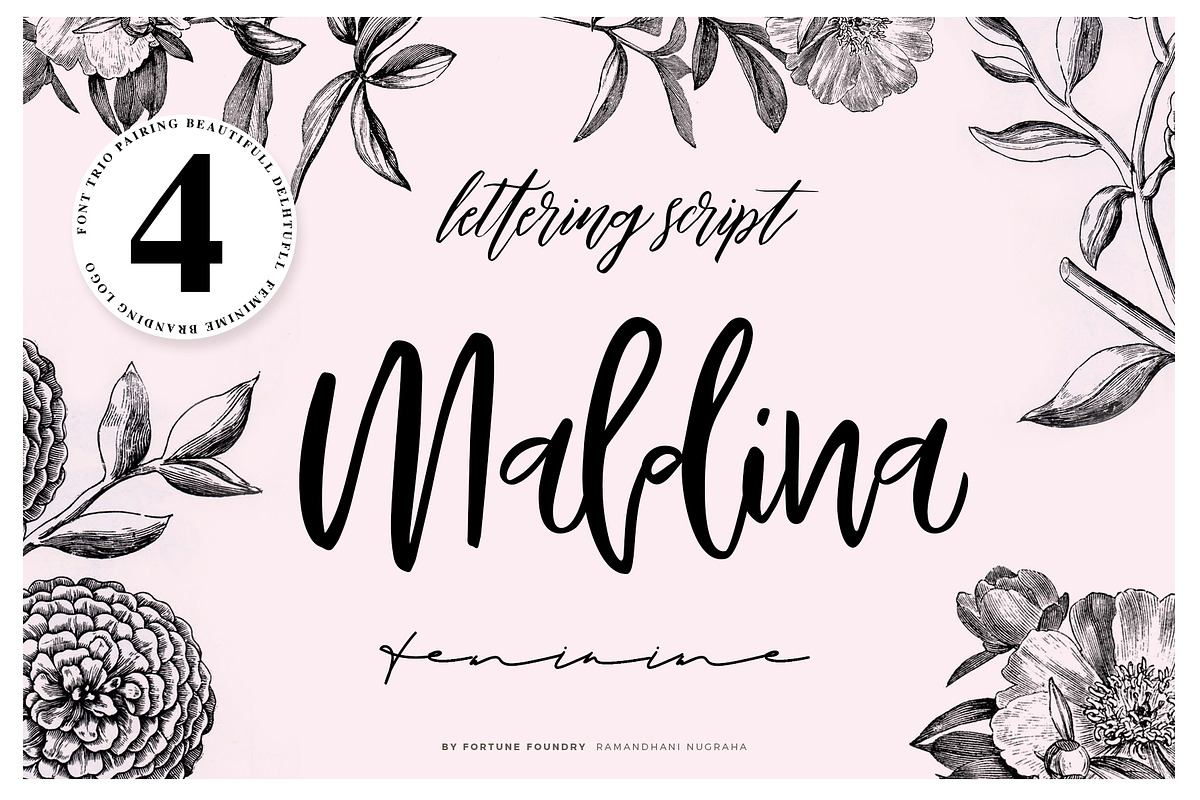
Maldina Feminime (4 fonts) Free Download
Maldina Feminine (4 Fonts) Free Download
Add elegance and style to your designs with Maldina Feminine (4 Fonts) Free Download. This beautiful font family includes four unique fonts, each designed with soft curves and a modern feminine touch, making it perfect for branding, logos, invitations, social media graphics, and more.
The Maldina Feminine family offers a blend of graceful serifs and script styles, providing versatility and sophistication for a variety of design projects. With uppercase and lowercase letters, numerals, punctuation, and multilingual support, you can create polished and expressive layouts with ease.